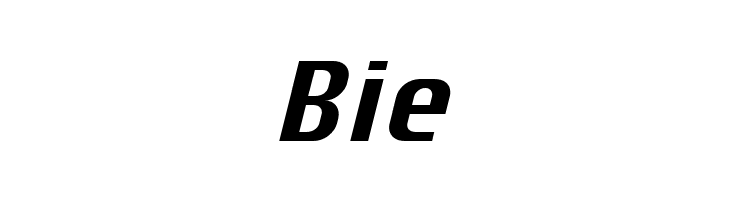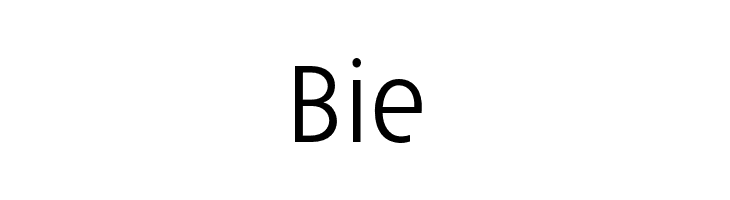
A bold, italicized font with a modern and sleek appearance.
A sleek, modern, light italic font with a streamlined and elegant appearance.
A sleek, modern italic font with clean lines and medium contrast.
A modern, light sans-serif font with low contrast and excellent readability.
A sleek, modern, light italic font with medium contrast and smooth strokes.
A clean, modern sans-serif font with low contrast and rounded edges.
A bold, heavy font with wide character spacing and a modern aesthetic.
A bold, modern font with thick, uniform strokes and tight spacing.
A sleek, modern light italic font with elegant slanted characters.
A bold, geometric typeface with clean lines and a modern aesthetic.